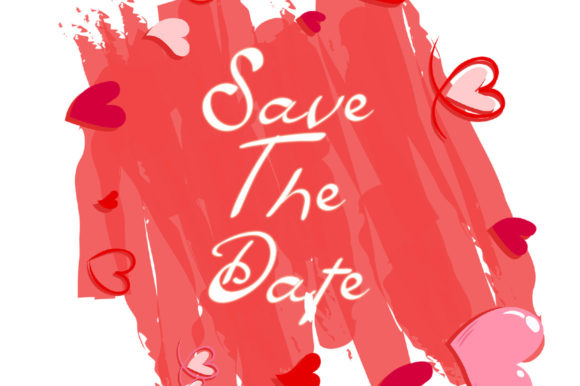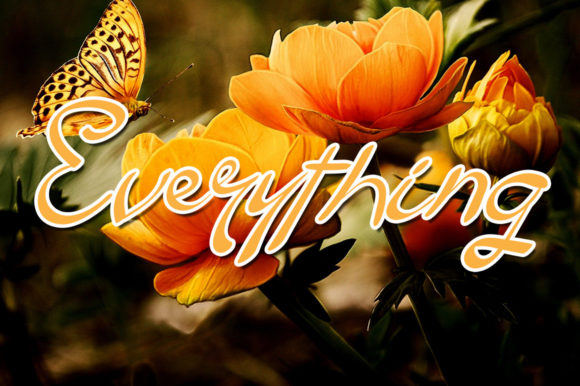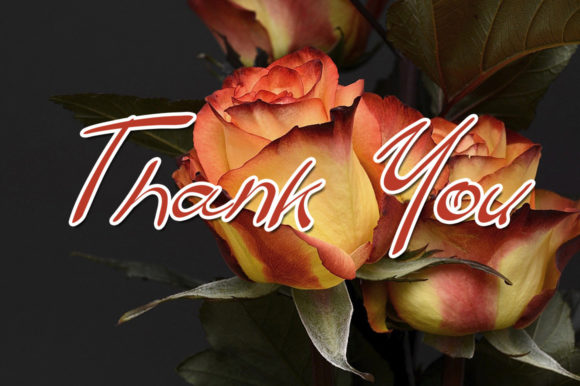
The Magical World of Butterfly Font: A Designer’s Delight
I still remember the time I was working on a whimsical craft project, pouring my heart and soul into creating the perfect invitation. The design was almost complete, but something was missing – the right font. I scoured the internet, tried out countless options, but none seemed to capture the playful essence I was looking for. That’s when I stumbled upon the Butterfly font, and it was love at first sight! ✨
A Lovely Script Font: First Impressions
The Butterfly font is described as “a lovely script font featuring charming, playful characters that seem to dance along the baseline.” And that’s exactly what it does! This beautiful font is perfect for designers, crafters, and creative hobbyists looking to add a touch of whimsy to their projects. Whether you’re working on a DIY craft, a branding project, or just a fun hobby, Butterfly font is sure to make your designs stand out.
So, what makes the Butterfly font so special? Here are a few things I love about it:
- ✨ Playful and charming characters: Each letter is carefully crafted to bring a sense of joy and playfulness to your designs.
- ✅ Easy to read: Despite its playful nature, the font remains highly legible, making it perfect for both headings and body text.
- 💃 Dance along the baseline: The characters seem to bounce along the baseline, adding a sense of movement and energy to your designs.
- ⚠️ Limited use of uppercase letters: While the font does include uppercase letters, they’re not as stylized as the lowercase letters.
- 🤔 Some letters may require manual kerning: Depending on the word or phrase, you may need to adjust the kerning to get the best results.
One of the best things about the Butterfly font is its OpenType features and glyphs. Here are a few tips for getting the most out of these features:
- 💡 Use glyphs to add decorative elements: The Butterfly font includes a range of glyphs, such as swashes and flourishes, that can add a touch of elegance to your designs.
- 🔍 Experiment with stylistic alternates: The font includes stylistic alternates that allow you to switch between different versions of letters and numbers.
The Butterfly font was designed with the intention of creating a playful and charming script font that would bring joy to designers and crafters. The designer wanted to create a font that would evoke the feeling of a carefree summer day, with characters that seem to dance along the baseline. And that’s exactly what they achieved!
- Q: What type of projects is the Butterfly font best suited for?
- A: The Butterfly font is perfect for creative projects, such as DIY crafts, invitations, and social media graphics.